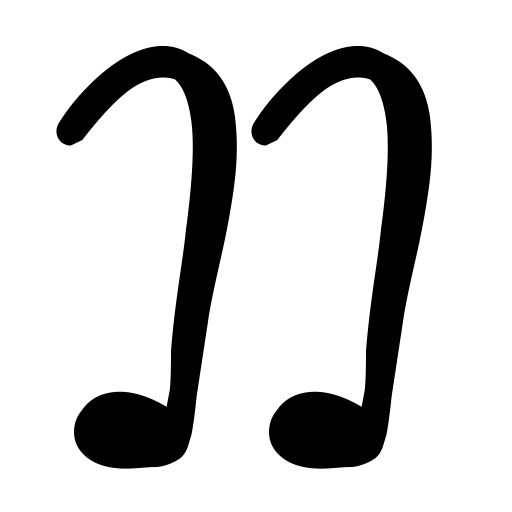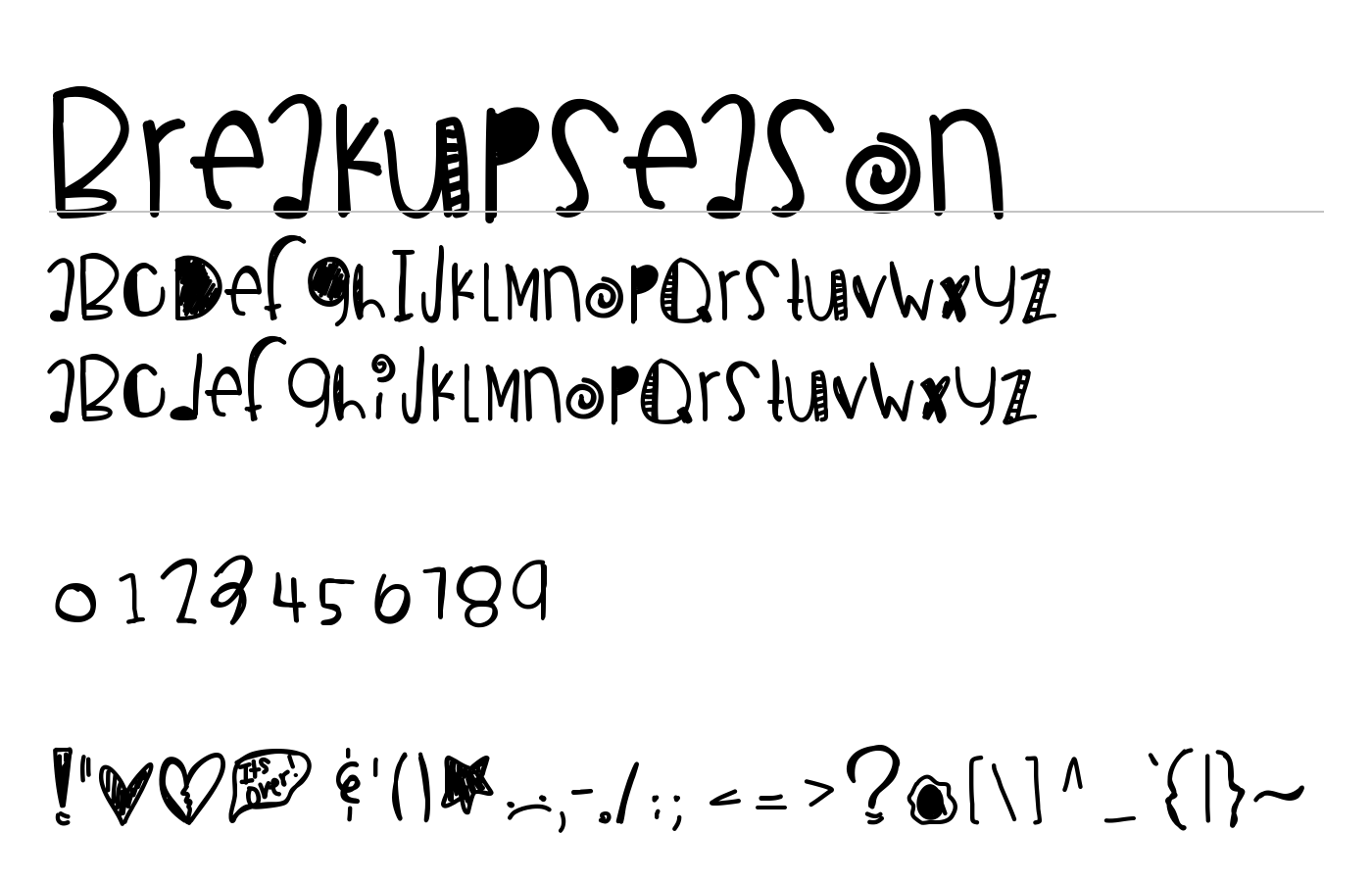
BreakupSeason is a playful and quirky handwritten font with uneven, organic strokes and whimsical letterforms that give it a casual, expressive vibe. Its irregular shapes and light weight make it perfect for creative projects, casual invitations, or youthful branding that wants to convey personality and fun. This font works well in headlines, logos, and any design needing a touch of charm and individuality.
BreakupSeason Font
About BreakupSeason Font